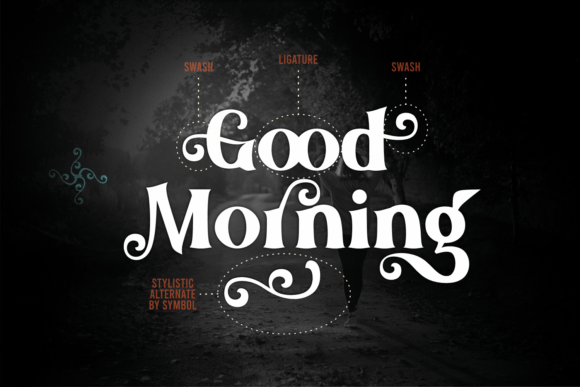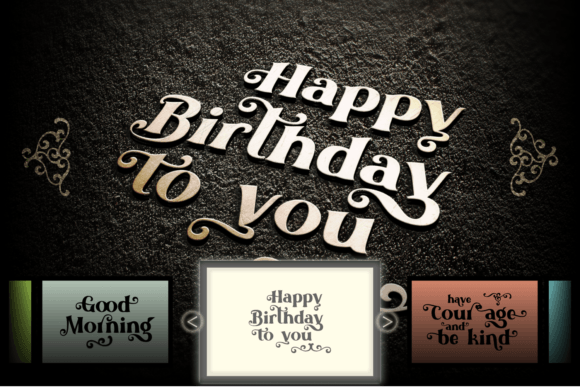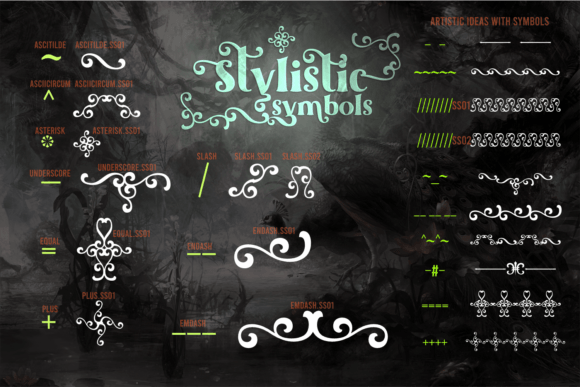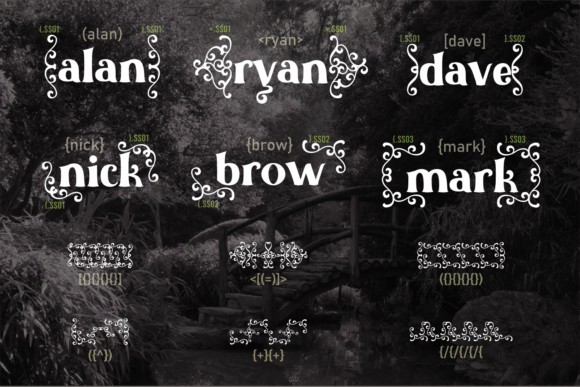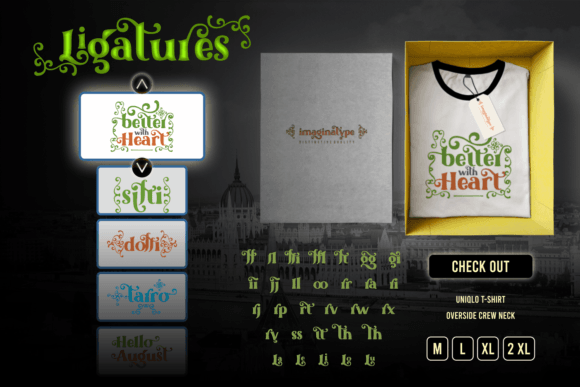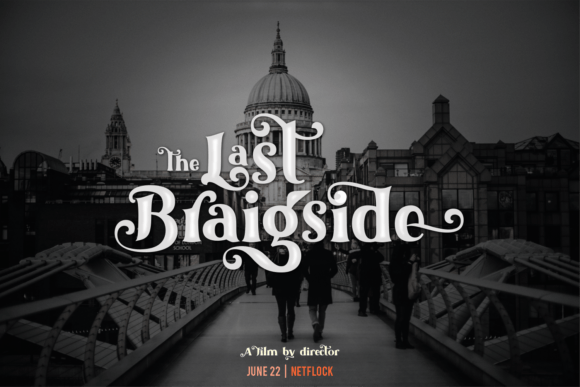
Doffaminggo Font: Elevate Your Designs with Elegance and Sophistication
In the world of typography, a font can make or break a design. For designers and crafters seeking to add a touch of elegance and sophistication to their projects, the Doffaminggo Font is an excellent choice. This ornate, artistic, and elegant serif font is designed to elevate your designs and leave a lasting impression.
What Makes Doffaminggo Font Stand Out?
Doffaminggo Font is a masterpiece of typographic artistry, boasting intricate details and ornate flourishes that set it apart from other fonts. Its elegant serif design makes it perfect for a wide range of applications, from luxury branding and high-end packaging to wedding invitations and digital marketing materials.
One of the key features that make Doffaminggo Font so versatile is its PUA (Private Use Area) encoding. This means that you can access all of the glyphs and swashes with ease, giving you the flexibility to experiment with different combinations and create unique designs that reflect your personal style.
Key Features of Doffaminggo Font
- Ornate and Elegant Design: Doffaminggo Font features an ornate, artistic, and elegant serif design that’s perfect for luxury branding, high-end packaging, and other premium applications.
- PUA Encoded: With PUA encoding, you can access all of the glyphs and swashes with ease, giving you the flexibility to experiment with different combinations and create unique designs.
- Highly Versatile: Doffaminggo Font is suitable for a wide range of applications, from digital marketing materials and wedding invitations to packaging and branding.
- Easy to Use: Doffaminggo Font is designed to be easy to use, even for those without extensive design experience.
How to Use Doffaminggo Font in Your Designs
To get the most out of Doffaminggo Font, experiment with different combinations of glyphs and swashes. This will help you to create unique designs that reflect your personal style and elevate your brand.
Benefits of Using Doffaminggo Font
There are many benefits to using Doffaminggo Font in your designs. Some of the most significant advantages include:
- Elegance and Sophistication: Doffaminggo Font adds a touch of elegance and sophistication to any design, making it perfect for luxury branding and high-end applications.
- Versatility: Doffaminggo Font is highly versatile, making it suitable for a wide range of applications and design projects.
- Easy to Use: Doffaminggo Font is designed to be easy to use, even for those without extensive design experience.
- Unique Designs: With PUA encoding, you can create unique designs that reflect your personal style and elevate your brand.
In conclusion, Doffaminggo Font is an excellent choice for designers and crafters seeking to add a touch of elegance and sophistication to their projects. With its ornate, artistic, and elegant serif design, PUA encoding, and high versatility, this font is perfect for a wide range of applications.
- What is Doffaminggo Font?
- Doffaminggo Font is an ornate, artistic, and elegant serif font designed for luxury branding, high-end packaging, and other premium applications.
- What is PUA encoding?
- PUA (Private Use Area) encoding allows you to access all of the glyphs and swashes in the font with ease, giving you the flexibility to experiment with different combinations and create unique designs.
- Is Doffaminggo Font easy to use?
- Yes, Doffaminggo Font is designed to be easy to use, even for those without extensive design experience.